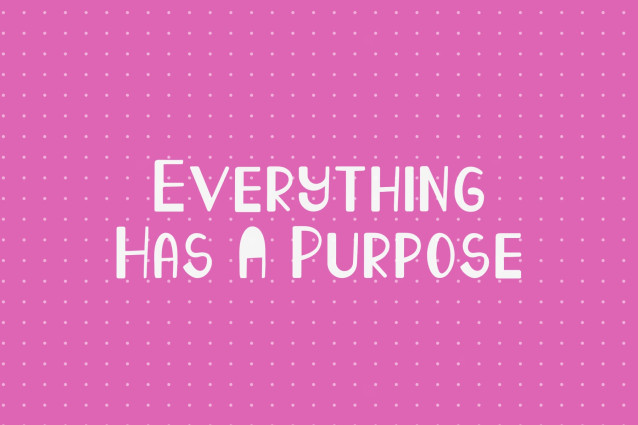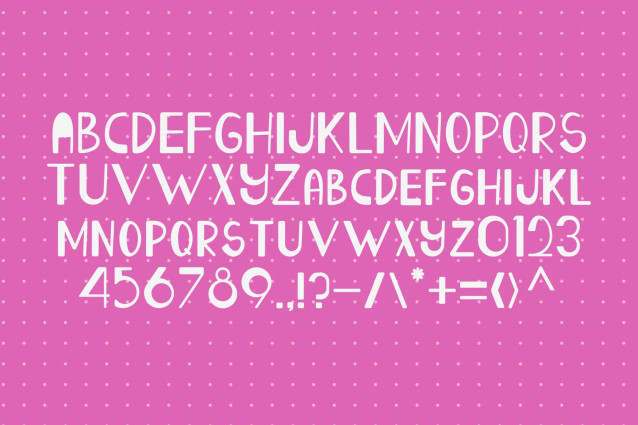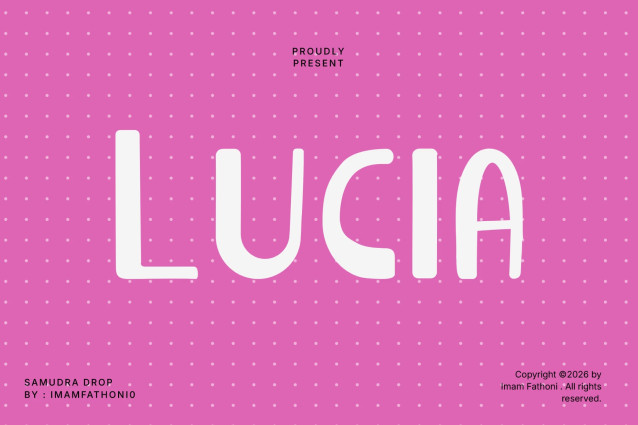
Lucia is a sweet, bubbly display font with soft rounded curves and a playful bounce, designed for cute and girly party themes. Its cheerful, dainty letterforms bring warmth and charm to any design, perfect for celebrating little princesses and their special moments.
Girl birthday party invitations, baby shower decor, princess-themed branding, nursery wall art, greeting cards, gift tags, boutique packaging, social media headers, kids’ clothing labels, party banners and cupcake toppers.